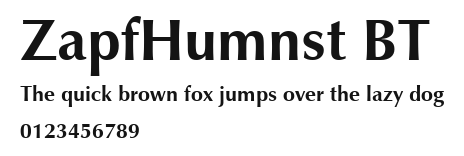
ZapfHumnst BT Preview
• Font Name: ZapfHumnst BT
• Font ID: Zapf Humanist 601 Bold
• Full Font Name: ZapfHumnst BT Bold
• PostScript Name: ZapfHumanist601BT-Bold
About ZapfHumnst BT.ttf
ZapfHumnst BT.ttf is a modern, elegant sans-serif font designed for ultimate readability and visual harmony. Perfect for branding, headlines, web design, and print materials.